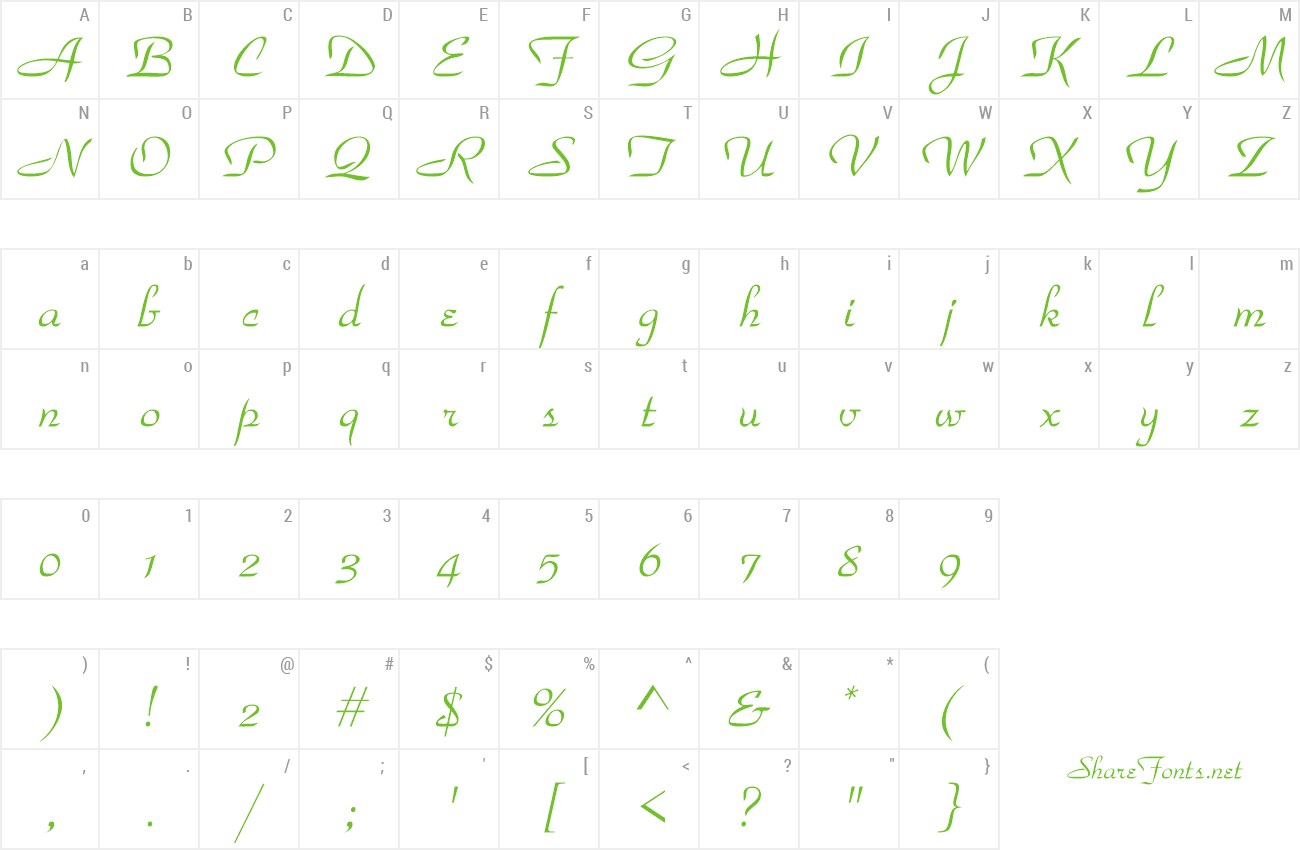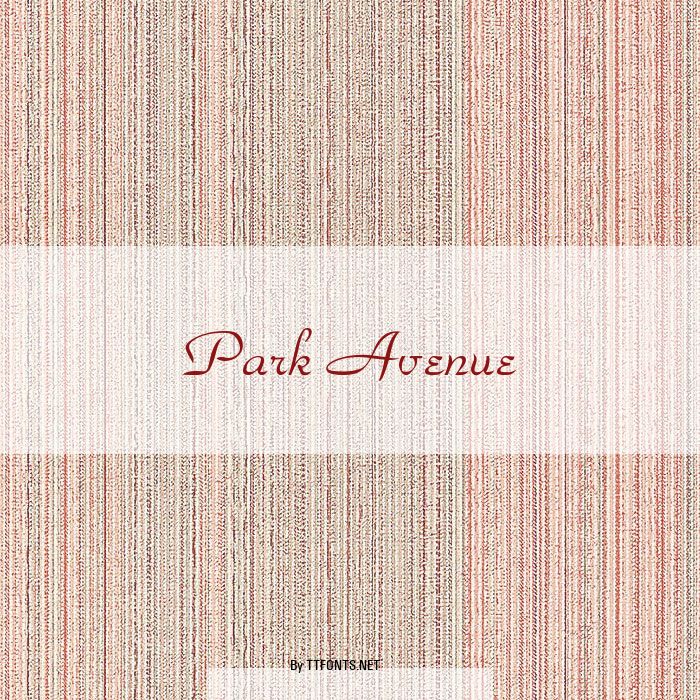
Park Avenue Font
Park Avenue Font - Web park avenue is a popular american informal script designed by robert e. Web park avenue is a lighthearted contemporary script designed by robert e. It has 1 style, park avenue std. Smith in 1933 for american type founders. Smith for atf in 1933.
Smith in 1933 for american type founders. Web park avenue is a popular american informal script designed by robert e. Web park avenue is a lighthearted contemporary script designed by robert e. It has 1 style, park avenue std. Smith for atf in 1933.
It has 1 style, park avenue std. Smith for atf in 1933. Web park avenue is a lighthearted contemporary script designed by robert e. Smith in 1933 for american type founders. Web park avenue is a popular american informal script designed by robert e.
It has 1 style, park avenue std. Web park avenue is a popular american informal script designed by robert e. Smith in 1933 for american type founders. Web park avenue is a lighthearted contemporary script designed by robert e. Smith for atf in 1933.
Smith for atf in 1933. Web park avenue is a popular american informal script designed by robert e. Web park avenue is a lighthearted contemporary script designed by robert e. It has 1 style, park avenue std. Smith in 1933 for american type founders.
It has 1 style, park avenue std. Smith in 1933 for american type founders. Smith for atf in 1933. Web park avenue is a lighthearted contemporary script designed by robert e. Web park avenue is a popular american informal script designed by robert e.
Web park avenue is a popular american informal script designed by robert e. It has 1 style, park avenue std. Web park avenue is a lighthearted contemporary script designed by robert e. Smith for atf in 1933. Smith in 1933 for american type founders.
Web park avenue is a popular american informal script designed by robert e. It has 1 style, park avenue std. Smith for atf in 1933. Smith in 1933 for american type founders. Web park avenue is a lighthearted contemporary script designed by robert e.
Web park avenue is a popular american informal script designed by robert e. Web park avenue is a lighthearted contemporary script designed by robert e. Smith in 1933 for american type founders. It has 1 style, park avenue std. Smith for atf in 1933.
It has 1 style, park avenue std. Web park avenue is a lighthearted contemporary script designed by robert e. Smith in 1933 for american type founders. Web park avenue is a popular american informal script designed by robert e. Smith for atf in 1933.
It has 1 style, park avenue std. Web park avenue is a popular american informal script designed by robert e. Smith for atf in 1933. Web park avenue is a lighthearted contemporary script designed by robert e. Smith in 1933 for american type founders.
Web park avenue is a lighthearted contemporary script designed by robert e. Smith in 1933 for american type founders. It has 1 style, park avenue std. Smith for atf in 1933. Web park avenue is a popular american informal script designed by robert e.
Smith For Atf In 1933.
Web park avenue is a popular american informal script designed by robert e. Web park avenue is a lighthearted contemporary script designed by robert e. Smith in 1933 for american type founders. It has 1 style, park avenue std.